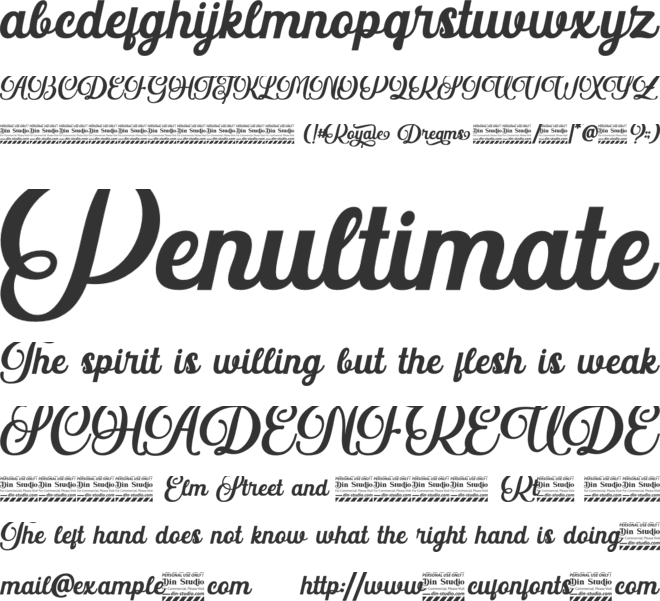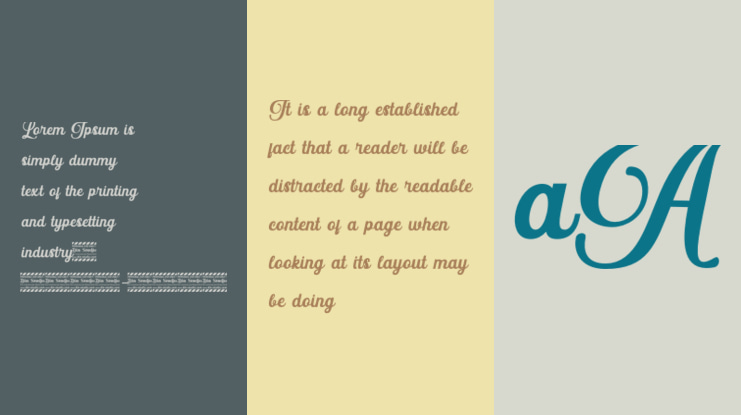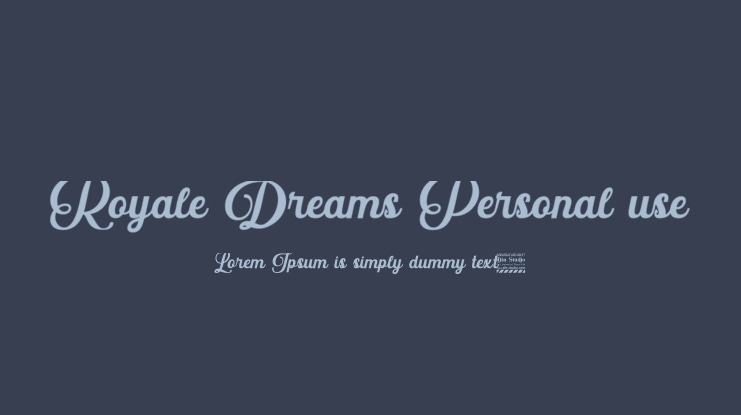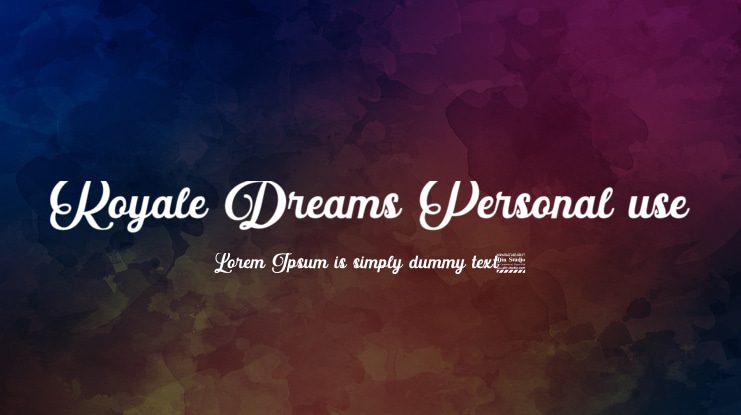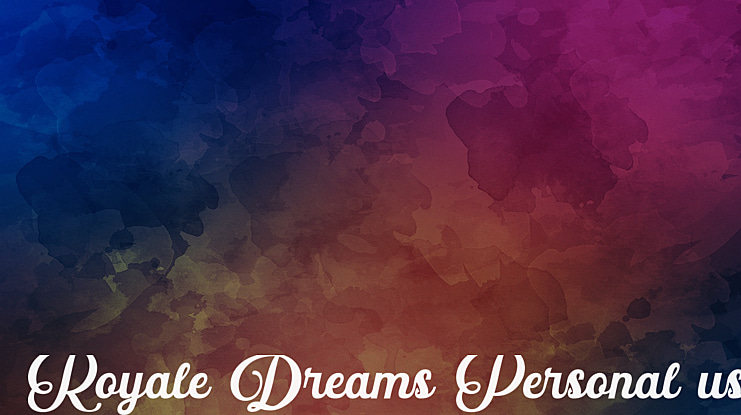
Royale Dreams is a elegant script typeface. Designed primarily as a captivating handcrafted with style. This typeface that is easy on the eyes font that excels at captivating headlines, or large branding text, the font oozes that cute aesthetic that just makes you go “aww!”
Our font always includes Multilingual Support to make your branding reach a global audience.